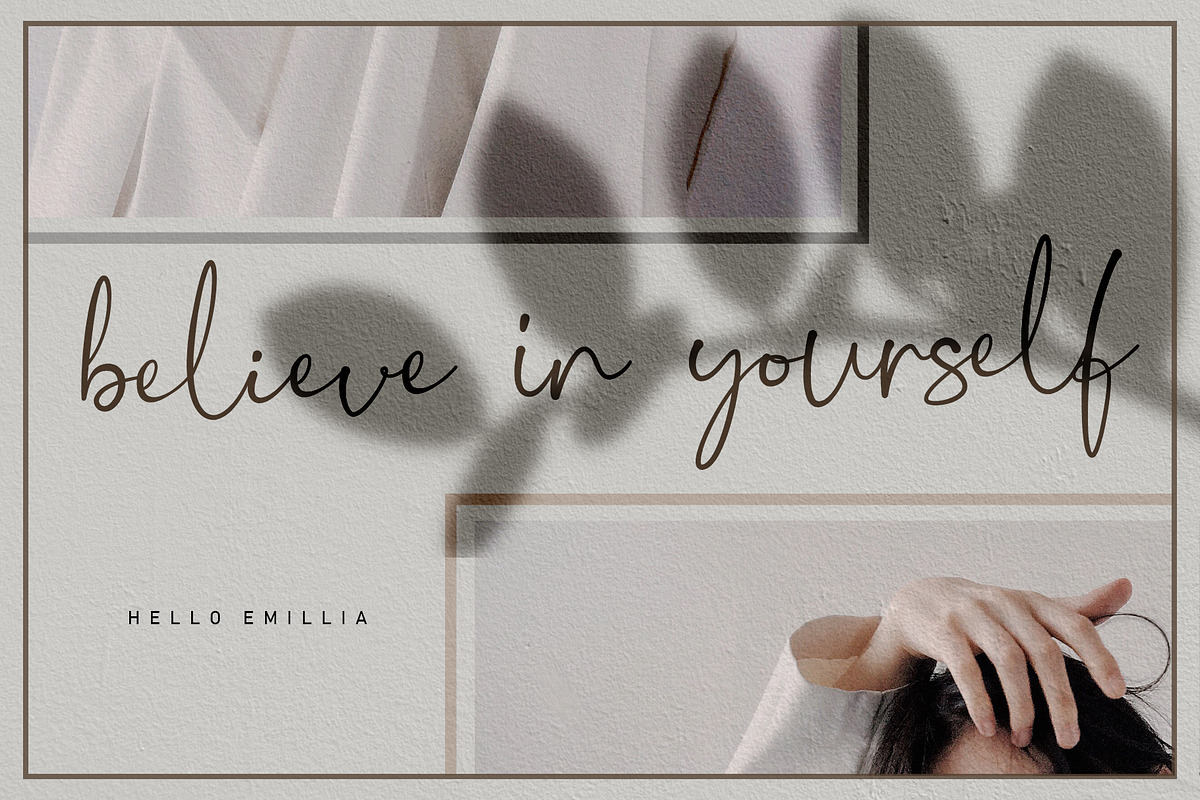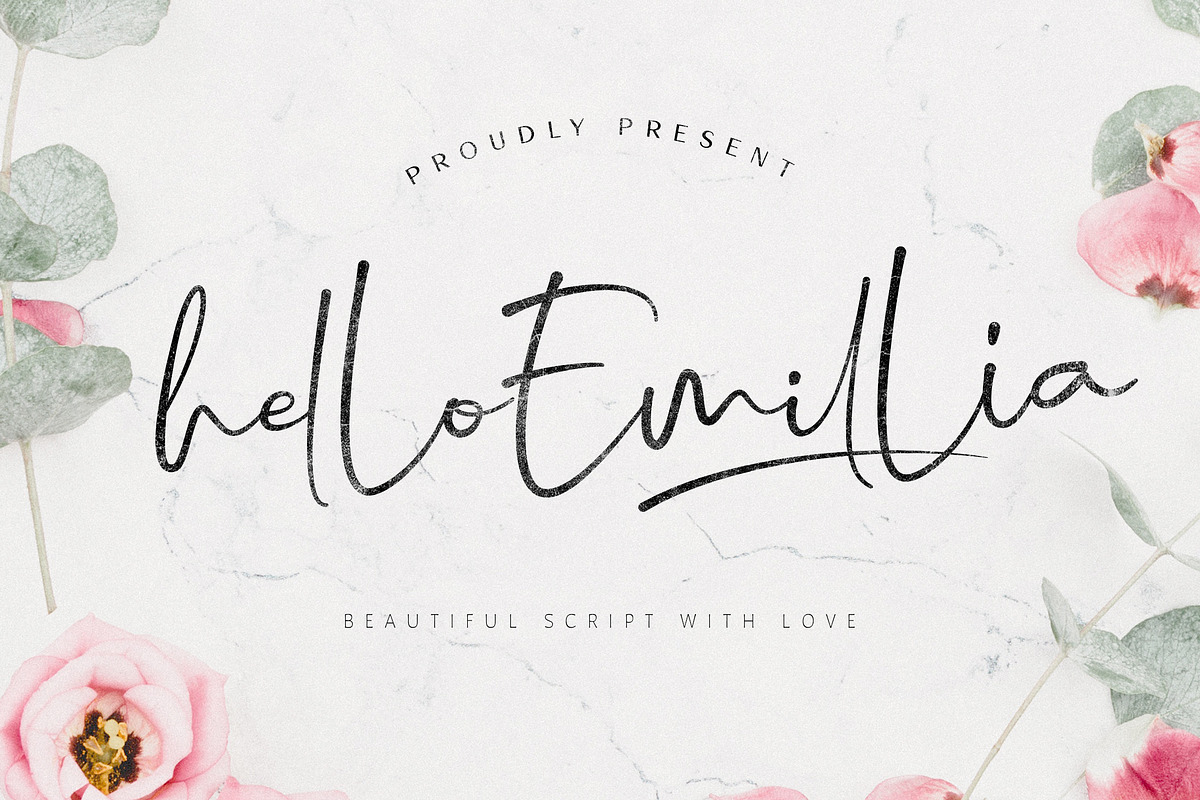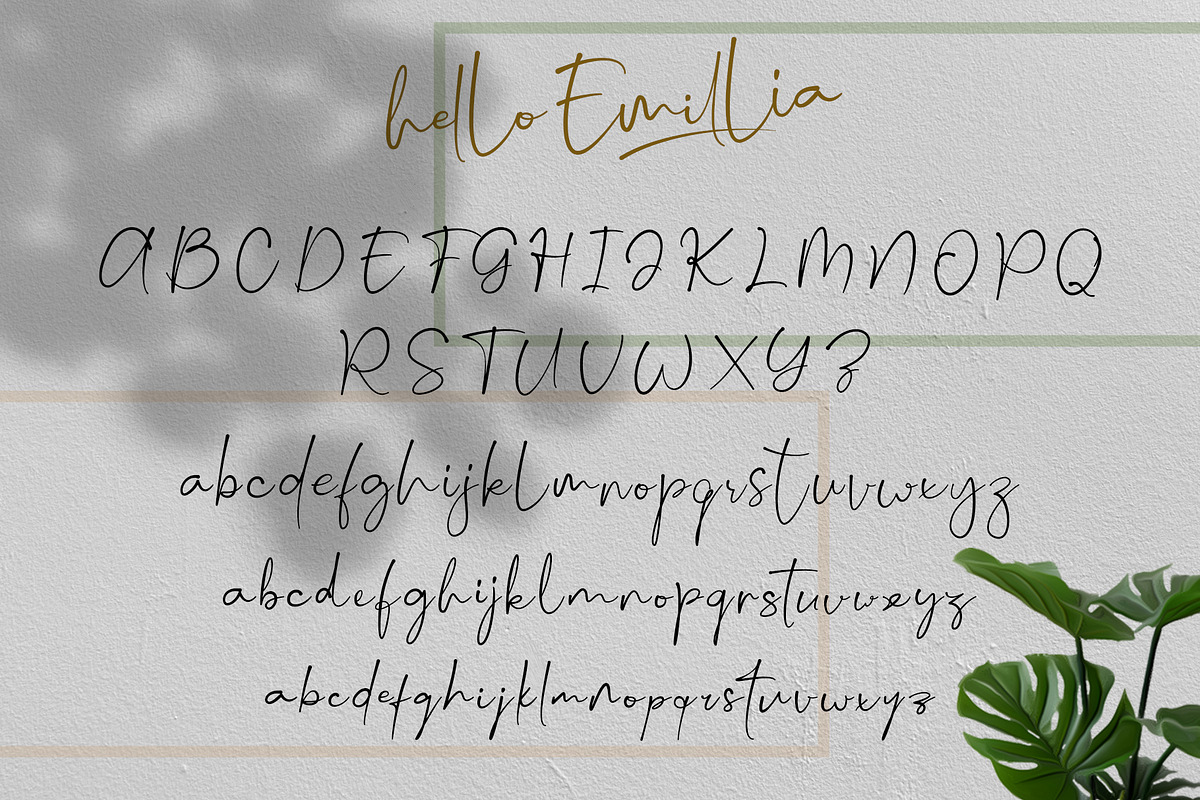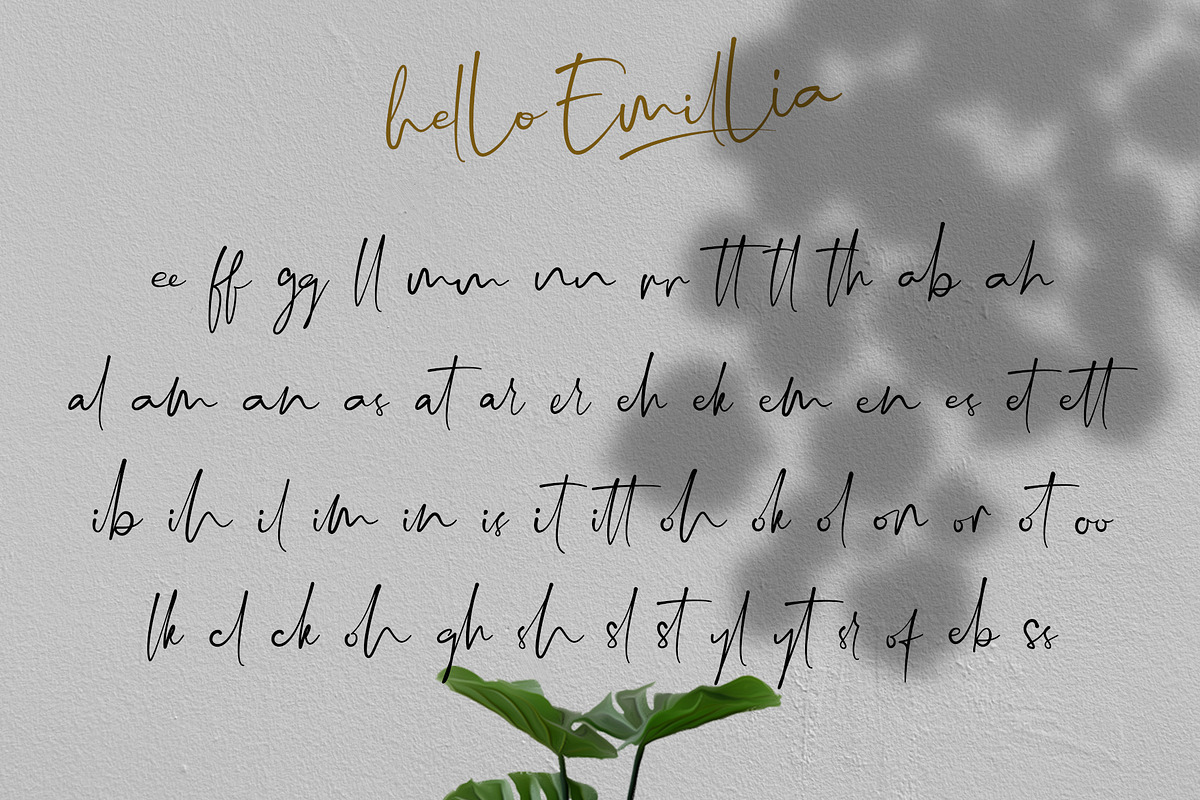
Hello Emillia Script
Hello Emillia is the perfect collection for any design project that requires a luxury and charming feel. Use it to turn any design project into a true standout!